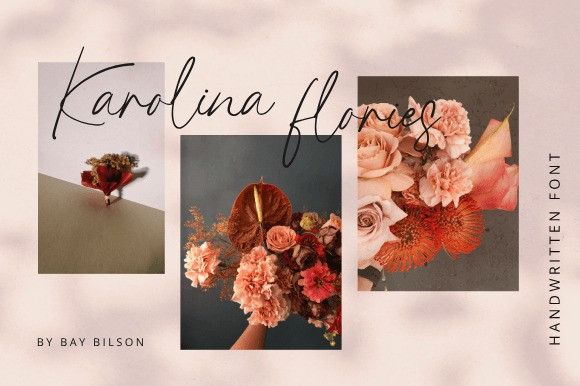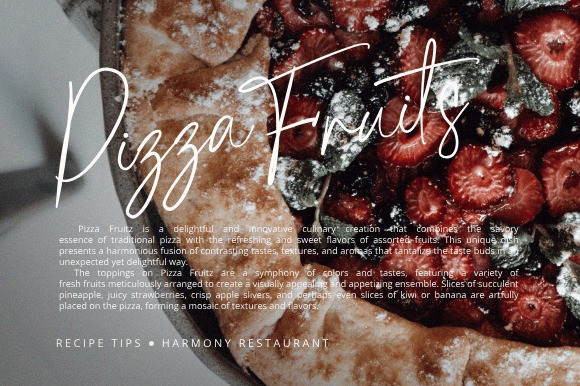
Goldesty Handwritten Font
Goldesty Handwritten Font is a captivating script font that exudes a perfect blend of elegance and whimsy. Its graceful, flowing strokes evoke a sense of handcrafted artistry, reminiscent of traditional calligraphy. The letters are intricately designed, showcasing a delicate balance between sophistication and playfulness.